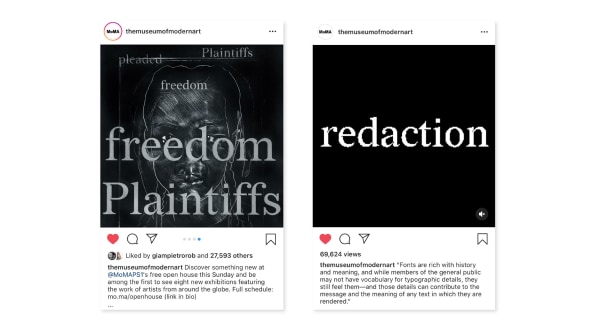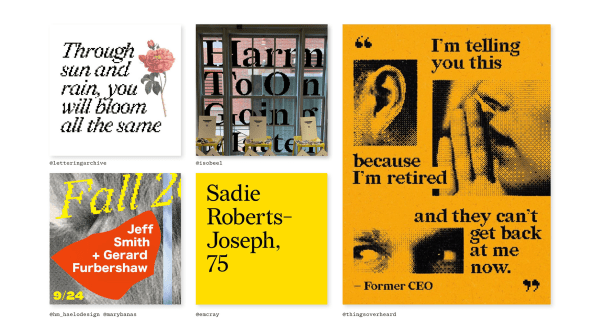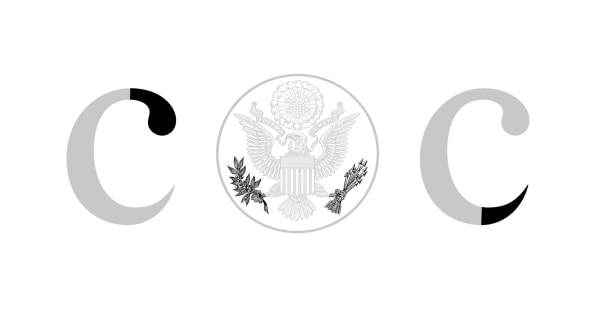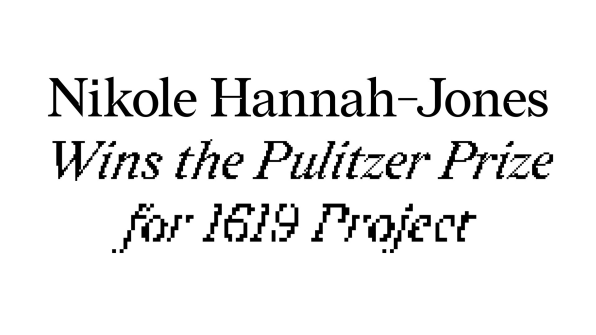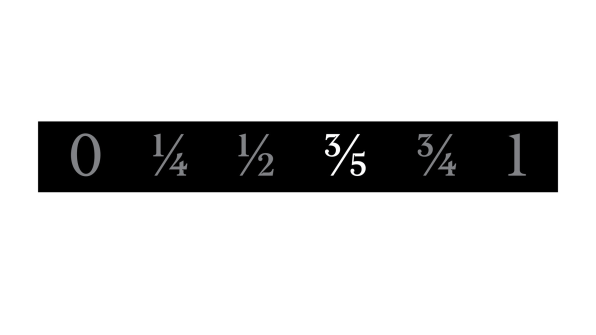
The system of paying bail is broken. If you have the cash on hand, you can buy your freedom until your trial. If you don’t, you spend your pretrial days in jail. So the have-nots are punished for their socioeconomic place in the world—a policy that disproportionately hurts African Americans. It’s an injustice that designer Forest Young wants to address with a thoughtful new typeface called Redaction.
Redaction was born in an exhibit by the same name that ran at MoMA PS1 last year, by artist Titus Kaphar and attorney Reginald Dwayne Betts. Kaphar placed etched portraits of incarcerated people next to Betts’s edited court transcripts, each redacted to tell a new story about prisoners amid the legal jargon. Redaction the exhibit subverted the court’s obfuscation to become a tool of civil empowerment—if only for a few dozen prints in a museum.
But when Young, who is global principal at the design firm Wolff Olins, was chatting with Kaphar, a former Yale classmate, about his new work, Young asked a question: Did Kaphar intentionally choose Zapfino as the typeface for his exhibition? His answer led to Redaction the typeface, a font that’s available to download for free.
“I was challenging him, saying Zapfino is playing such a pivotal role . . . and your work is about the semantics of who is being obscured,” says Young. Zapfino was created by Hermann Zapf in 1944. Zapf is considered a renowned typographer whose typefaces, such as Palatino and Optima, were standardized in the 1990s across Windows and Mac. He was also a Nazi soldier and cartographer during WWII. Kaphar didn’t realize this, and discovered an unintentional semiotic layer to his work. So he agreed that Young should create something new for the exhibition.
Young teamed up with typographer Jeremy Mickel, and the two began researching the history of U.S. court documents and their editing. As it turned out, the typefaces on these documents is highly standardized. Century Schoolbook is used by every document that the Supreme Court reads. Times New Roman is the standard of the U.S. Court of Appeals.
“So we have this supersharp version, and I distinctly remember Titus [Kaphar] saying, ‘It looks great . . . but let’s fuck it up a little bit,'” Mickel says. That’s when they embraced the idea of degradation: As court documents get copied over and over, they might be redacted and lose generational fidelity. Words became a copy of a copy. So the more a document has been processed, the less legible it becomes.
Young and Mickel infused their typeface with ink traps inspired by analog ink printing. Small slices inside corners of a typeface are left open, to allow excess ink to soak in. But in the case of Redaction, these ink traps became a difficult-to-reproduce watermark.
“If someone uses this typeface with intention, they understand if it’s photocopied or shared, these ink traps serve as a trigger to show this has been modified,” Young says. If you recompressed or processed these ink traps, they might be lost, or distorted, to an algorithm—an idea inspired in part by the work of artist Peter Saville.
After building that typeface, the duo decided to make Redaction a full font, with italics, bold, and also bitmapped versions, which are full of compression artifacts and, at the same time, still legible.
“It raises notions of what does degradation mean? Is it an aesthetic process, superficial? Is it bringing awareness to the visual evidence of modification and something that’s been obscured?” Young says. “I think in some ways the typeface is wrestling with these ideas.”
Since debuting at the MoMA PS1 in the Redaction show last year, Young and Mickel have made Redaction (the font) available for free download and use, with a full Latin character set for multi-language implementation. And while it’s ambitious, Young and Mickel hope that Redaction can become a shorthand typeface for civil rights.
“As the typeface gained awareness beyond the show, we had someone on Twitter say, ‘I need Spanish accents because I need to raise awareness for arrests at the border,'” Young says. “It’s evolving.”